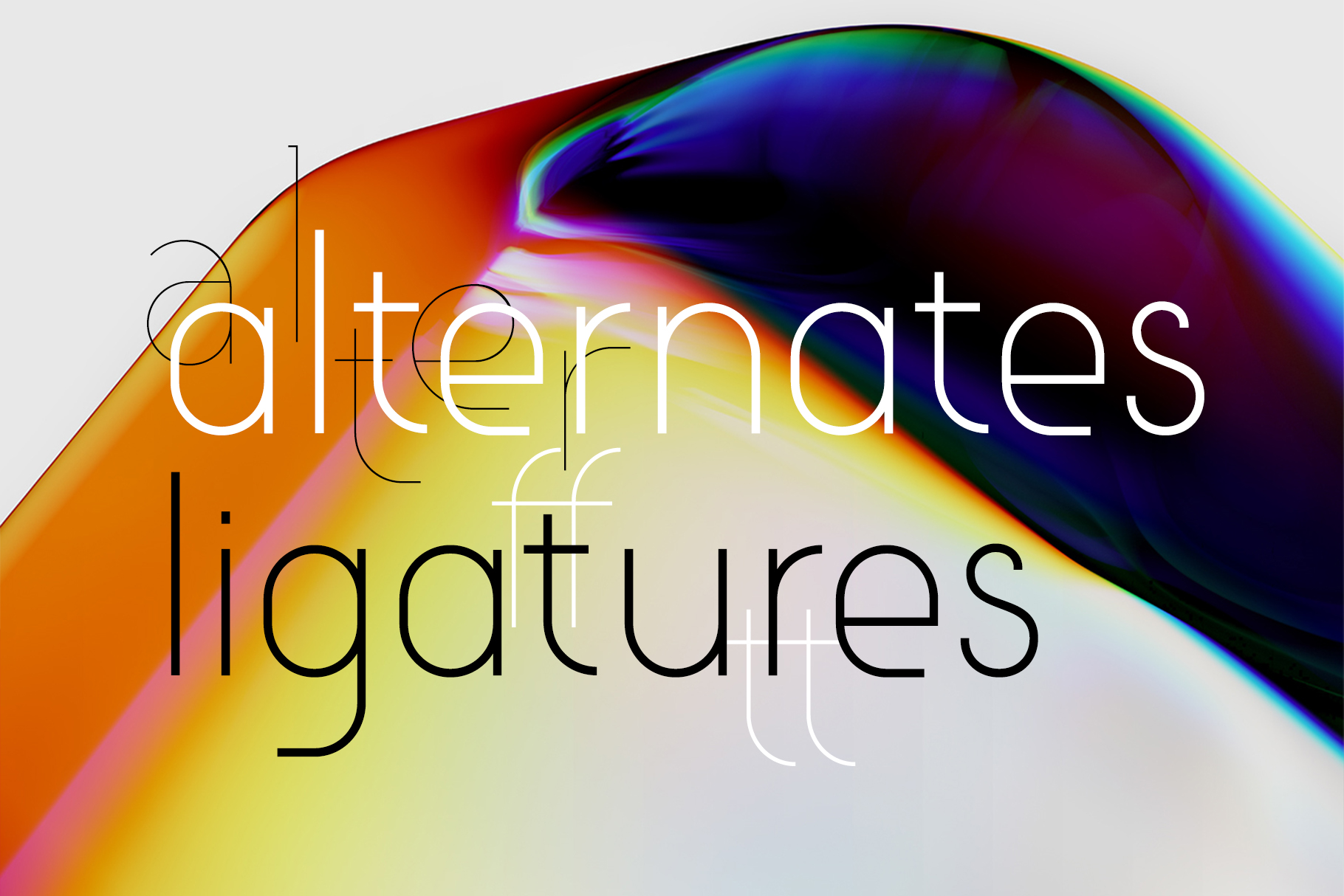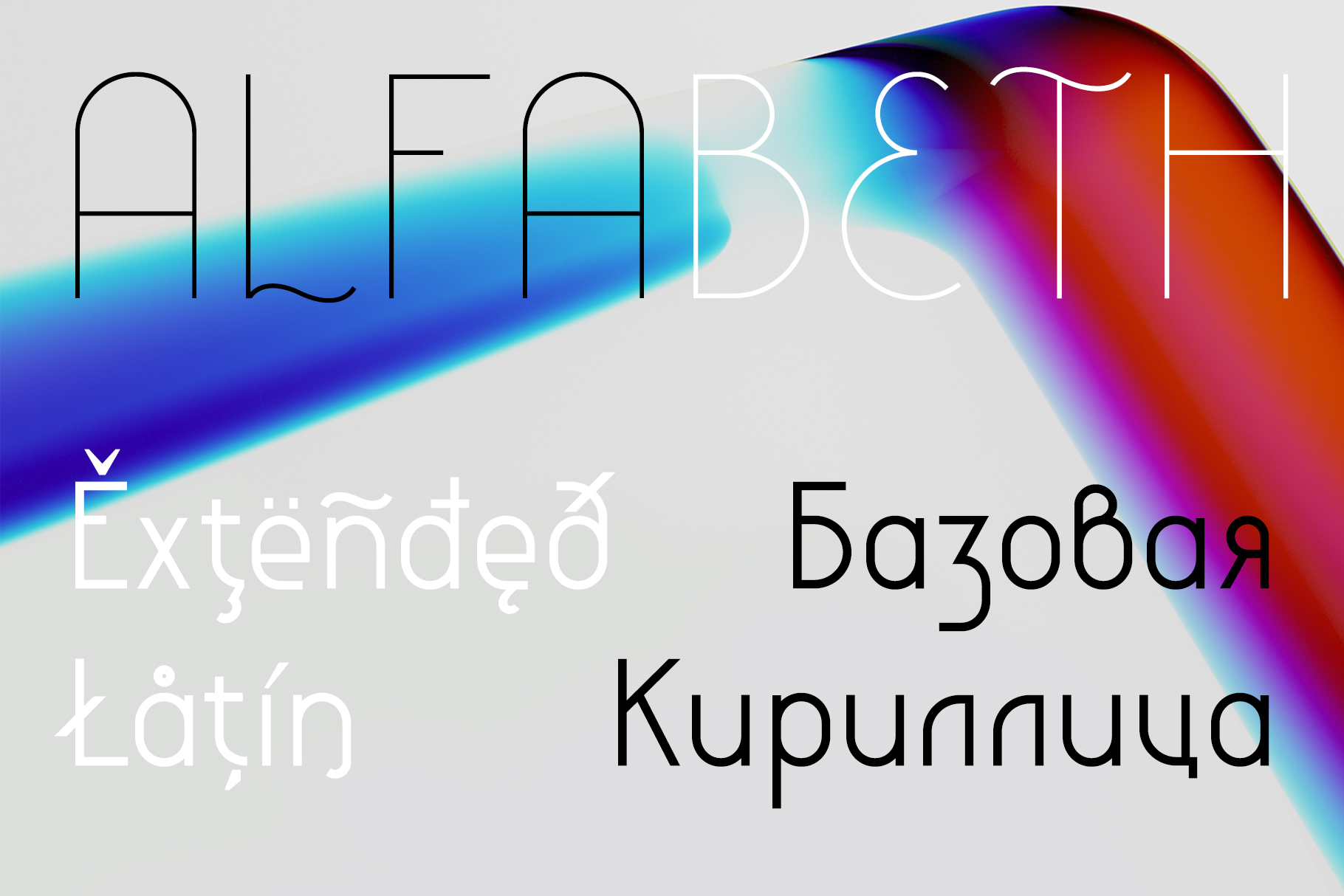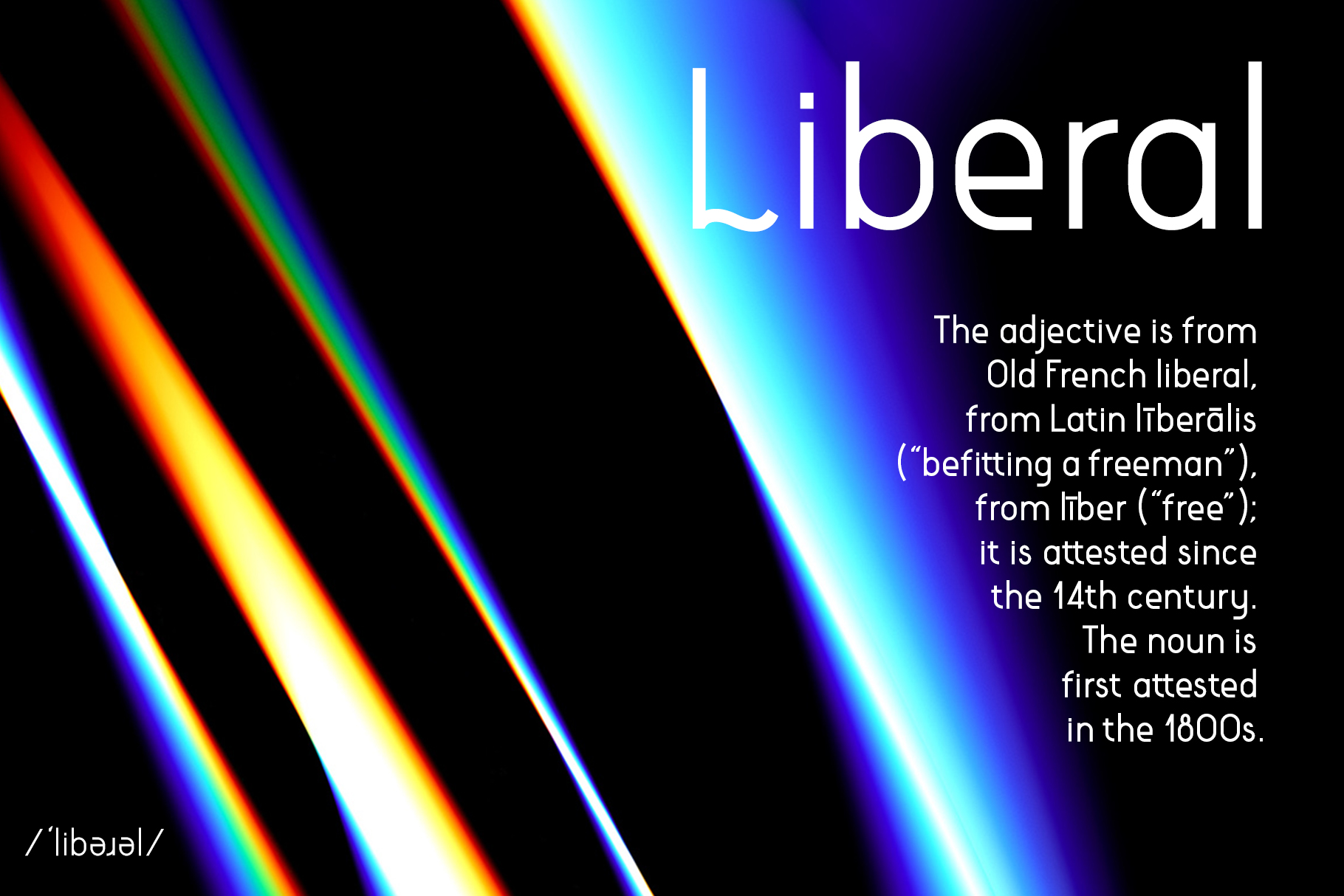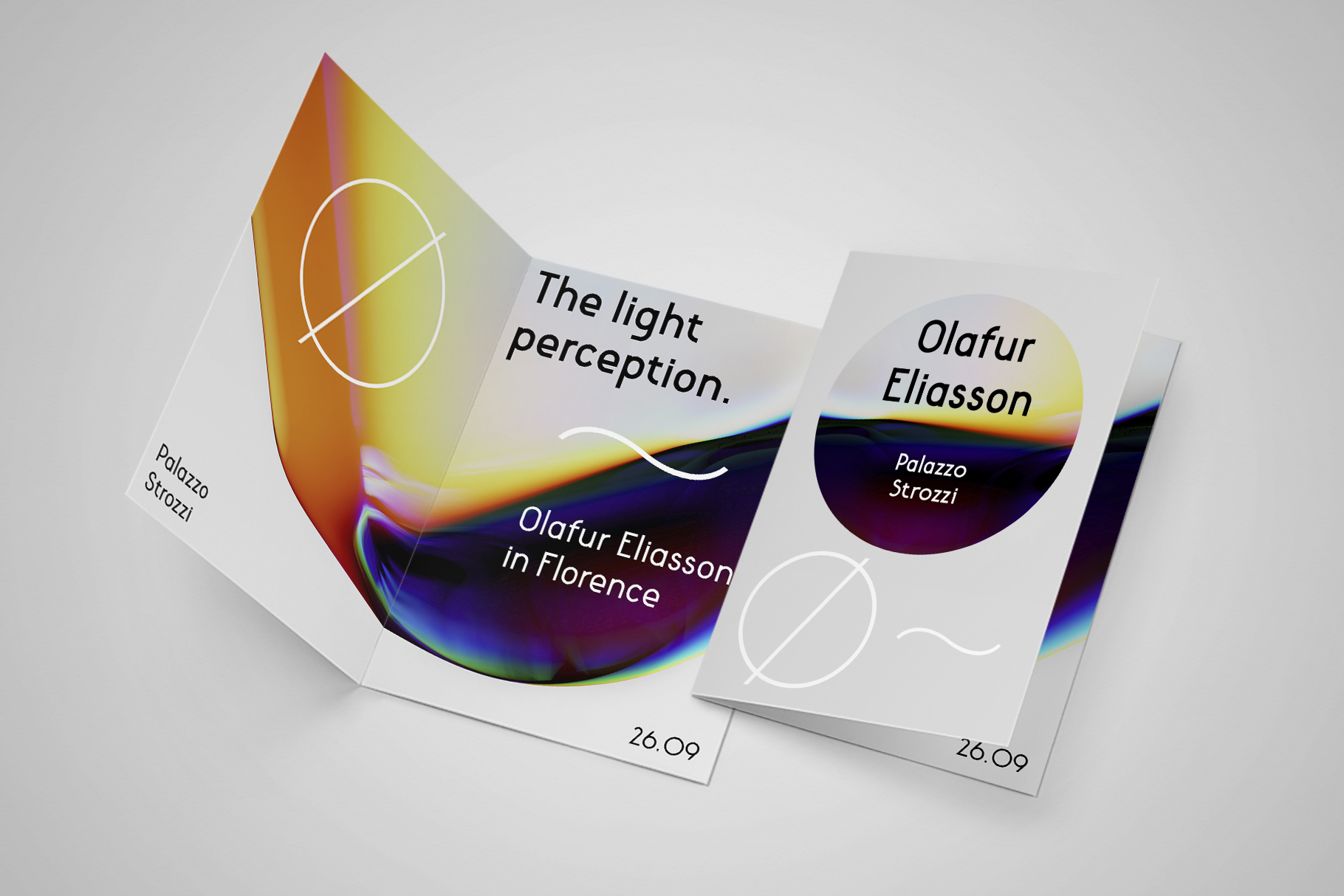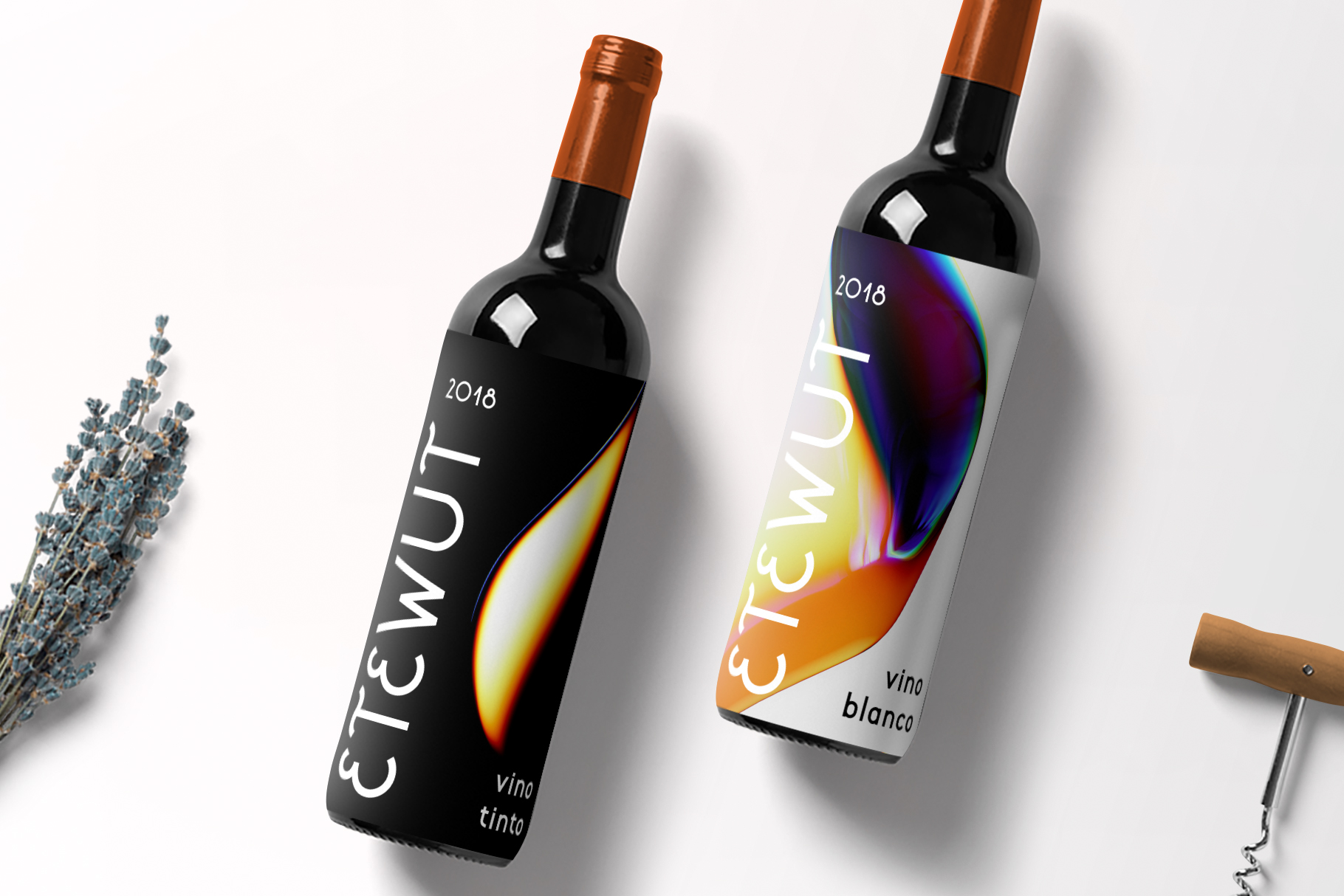
Introduction to Liberal Condensed Font
Have you ever stared at a blank canvas, waiting for inspiration to strike? You know the feeling – it’s a mix of excitement and anxiety. As designers, we’ve all been there. But what if we told you that the perfect font can be the spark that ignites your creative project? Enter the Liberal Condensed Font, a game-changing design resource that’s about to revolutionize the way you approach typography.
With its beautiful, condensed sans serif design, Liberal Condensed Font is the perfect addition to any design project. Whether you’re working on a high-quality brochure or creating a digital graphic, this font is sure to elevate your design to the next level. Plus, its transparent background and clean lines make it a versatile design resource that’s easy to work with.
Key Features of Liberal Condensed Font
- Unique Design: Liberal Condensed Font offers a modern, clean design perfect for creative projects requiring a touch of sophistication.
- High-Quality Graphics: This font is designed with high-quality graphics, ensuring a crisp and clear display on various devices.
- Perfect for Creative Projects: Liberal Condensed Font is ideal for use in creative projects, including logos, business cards, and marketing materials.
Honest Review: Liberal Condensed Font
I recently had the chance to work with the Liberal Condensed Font, and I must say it’s been a great addition to my design arsenal. ✨ The font is perfect for creating clean and modern designs, making it an ideal choice for a variety of creative projects.
One of the standout features of the Liberal Condensed Font is its versatility. It can be easily customized to fit the needs of any design, from titles and headings to body text. The font also comes with a transparent background, making it easy to overlay on any image or background.
⚠️ One limitation of the Liberal Condensed Font is that it may not be suitable for all types of designs. The font is quite modern and sleek, so it may not be the best choice for more traditional or classic designs.
The Liberal Condensed Font is ideal for use in creative projects such as logos, brochures, and business cards. It’s also a great choice for presentations and documents where a clear, concise font is required.